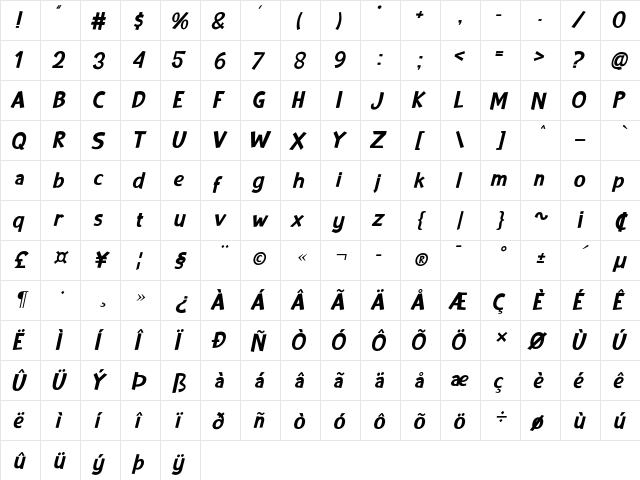
Conversation Regular
| Designer | Dicky Syafaat |
Design Context for Conversation Typeface
Conversation takes a measured approach to typography — its balanced proportions and neutral character make it a reliable workhorse for both digital and print work.